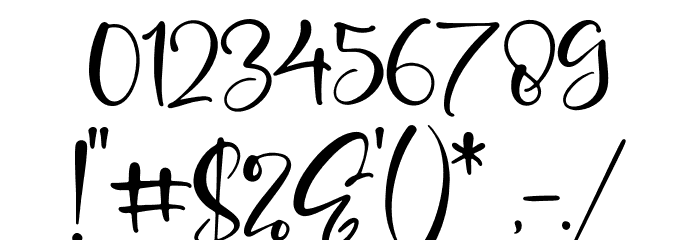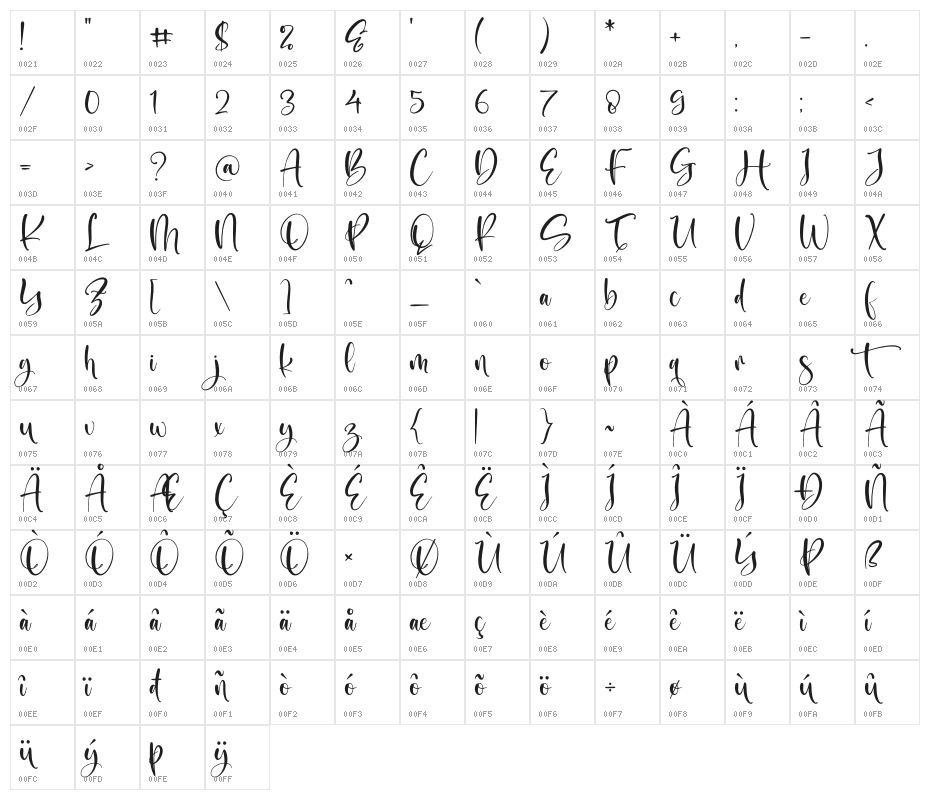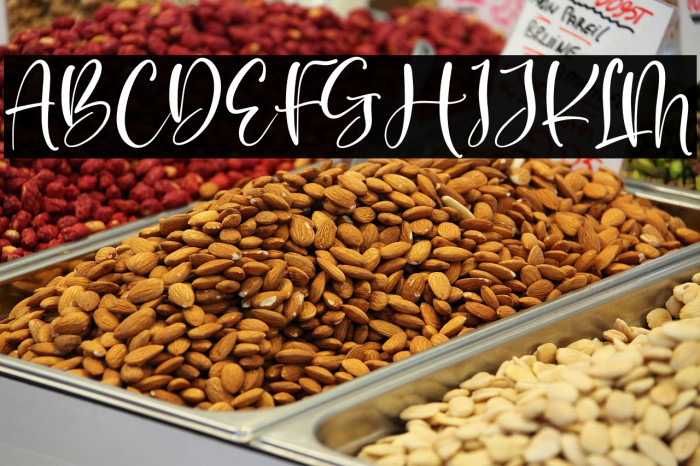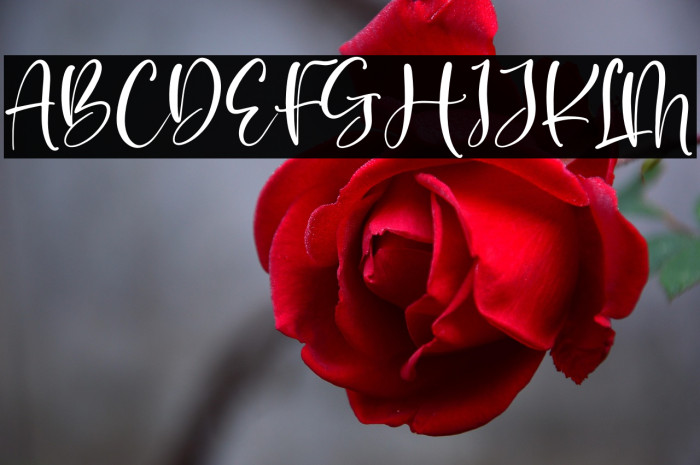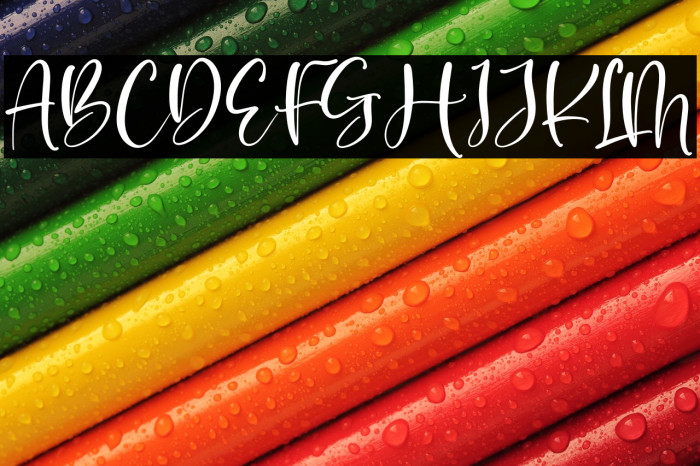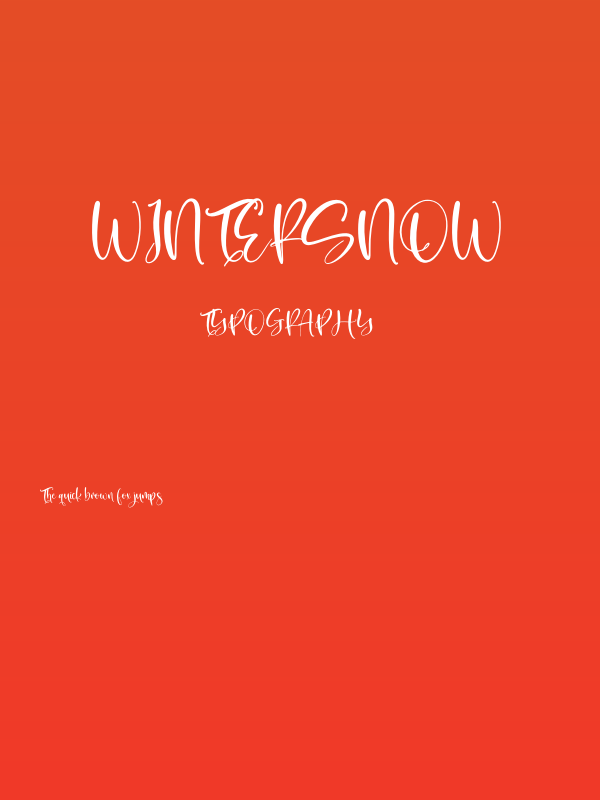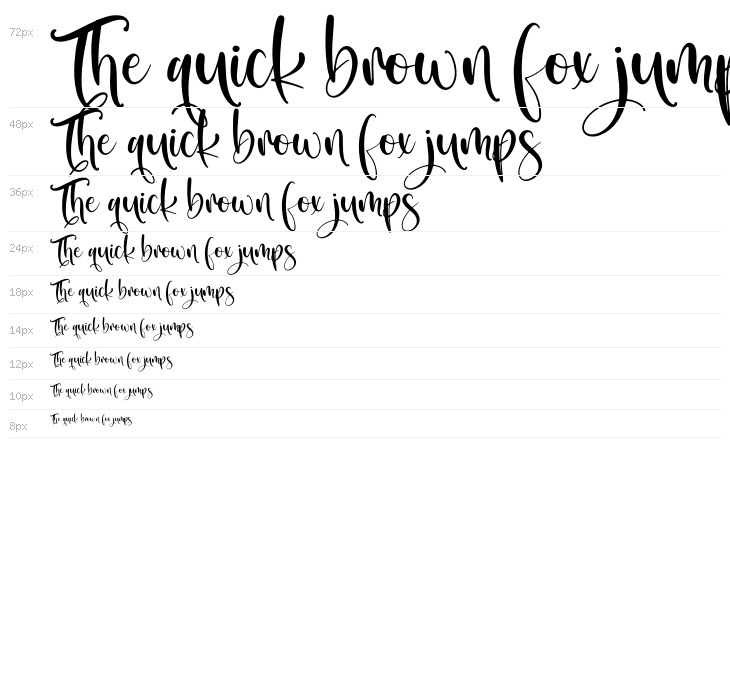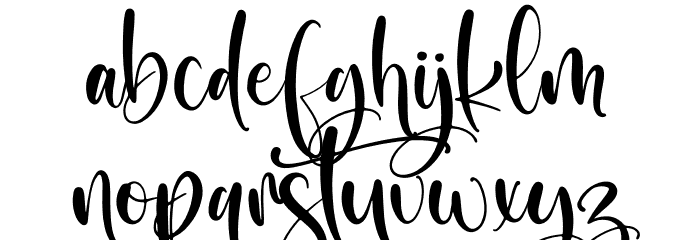
Wintersnow Font
Wintersnow Description
This font features a lively and flowing script style, characterized by its elegant and cursive letterforms. The uppercase letters are bold and dynamic, with sweeping curves and loops that give a sense of movement and grace. The lowercase letters maintain a consistent flow, with some characters extending below the baseline, adding to the font's whimsical nature. The numerals are well-integrated, matching the overall style with their rounded and playful appearance. Special characters are creatively designed, maintaining the font's cohesive and artistic look. This font is perfect for projects that require a personal and artistic touch, such as invitations, greeting cards, and branding materials.